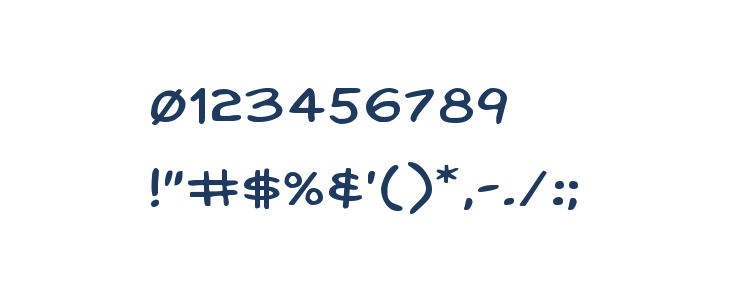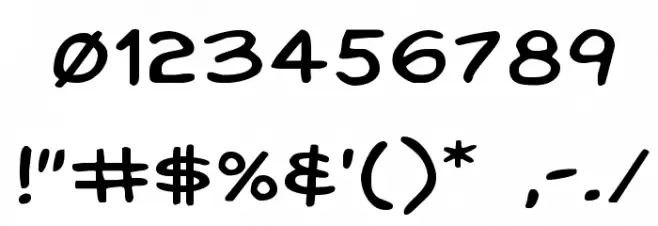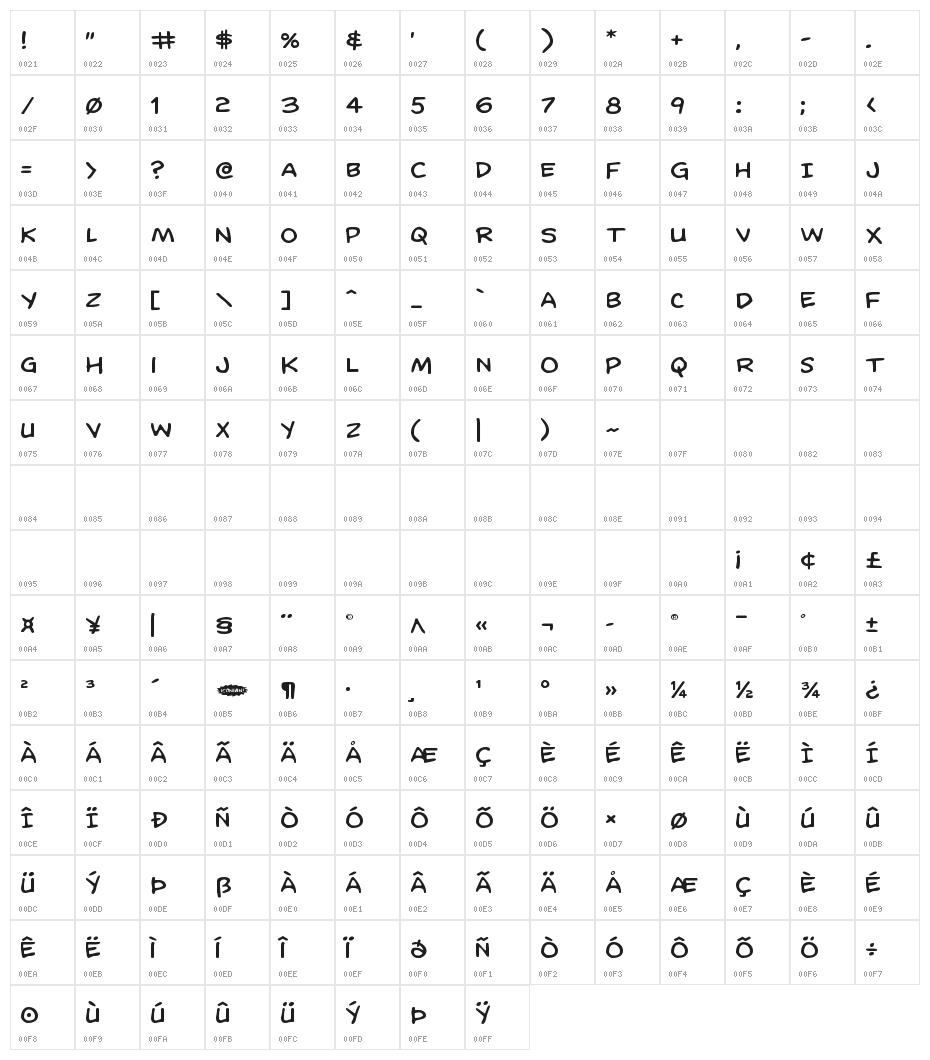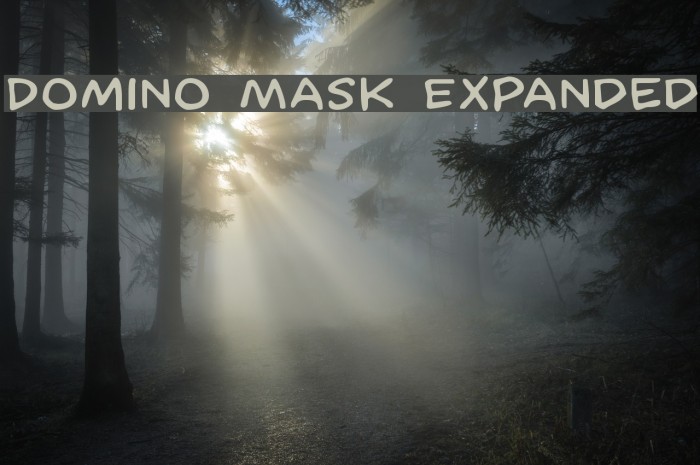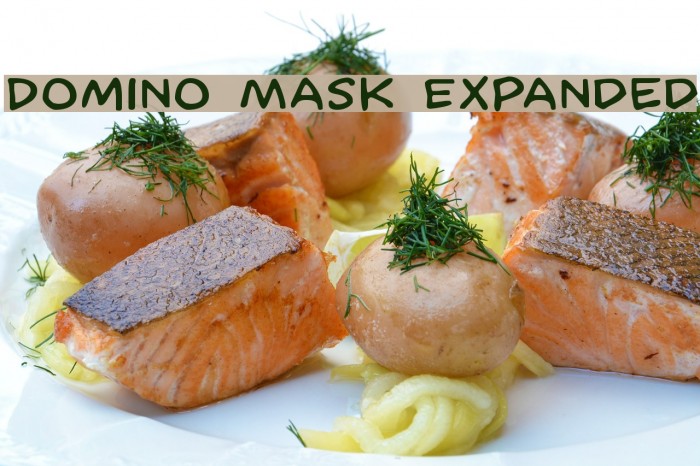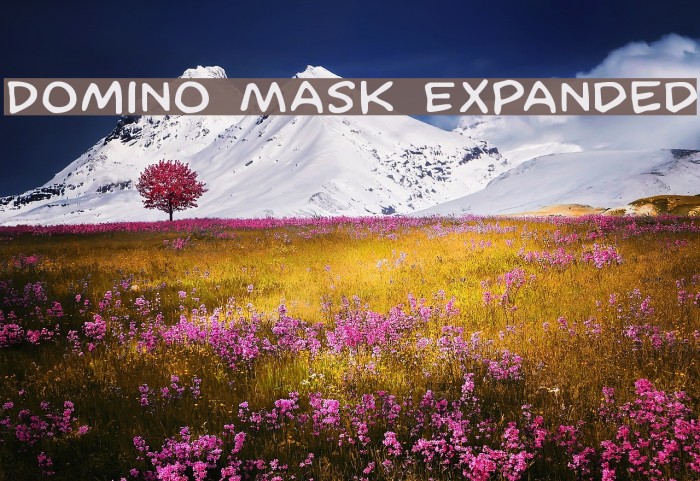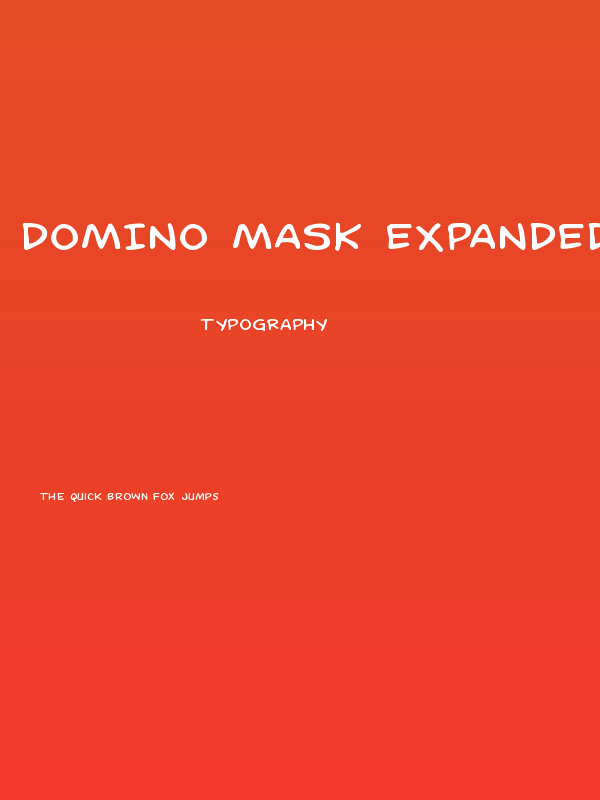
Domino Mask Expanded Font
Domino Mask Expanded Description
This font features a playful and casual handwritten style, characterized by its rounded and slightly irregular letterforms. The strokes are bold and consistent, giving it a friendly and approachable appearance. The characters have a uniform thickness, contributing to a cohesive look across both uppercase and lowercase letters. The numerals and special characters maintain the same playful aesthetic, making it suitable for informal and creative projects. The overall style is reminiscent of casual handwriting, making it ideal for projects that require a personal touch.
| Proposed Projects | Ideal for children's books, greeting cards, casual branding, and creative invitations. |